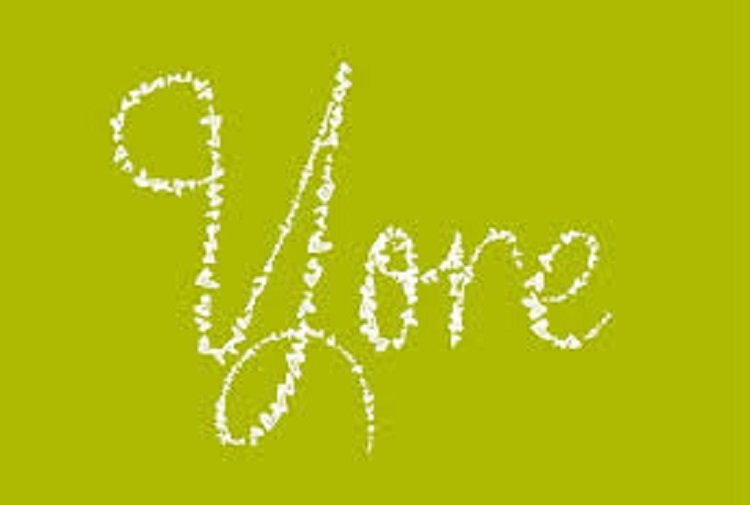
Yore Script Font
Yore Script free font is a unique typeface with brush-style letter shapes. It is a great free font with looks good in small size as well as big size. Available in ttf font format.